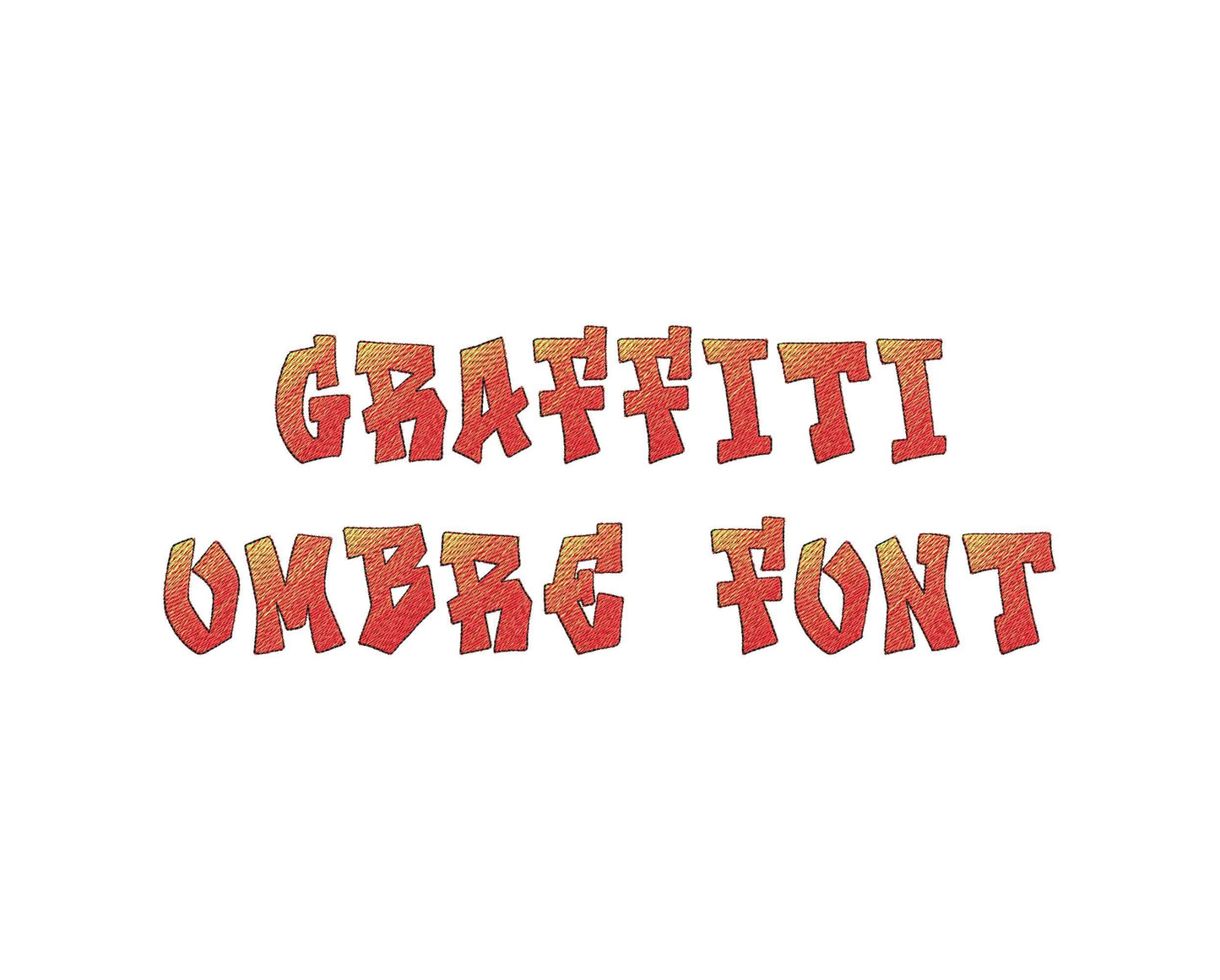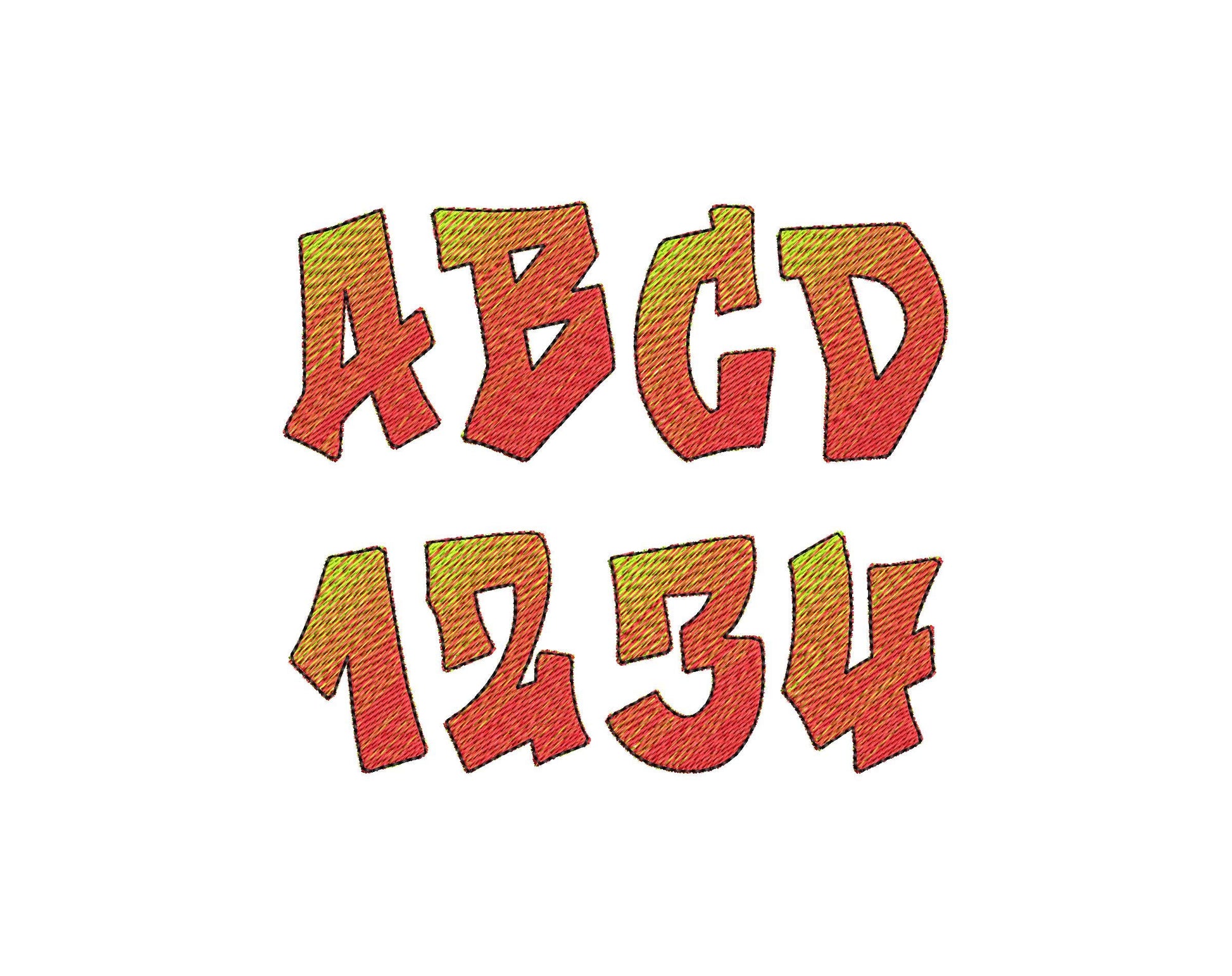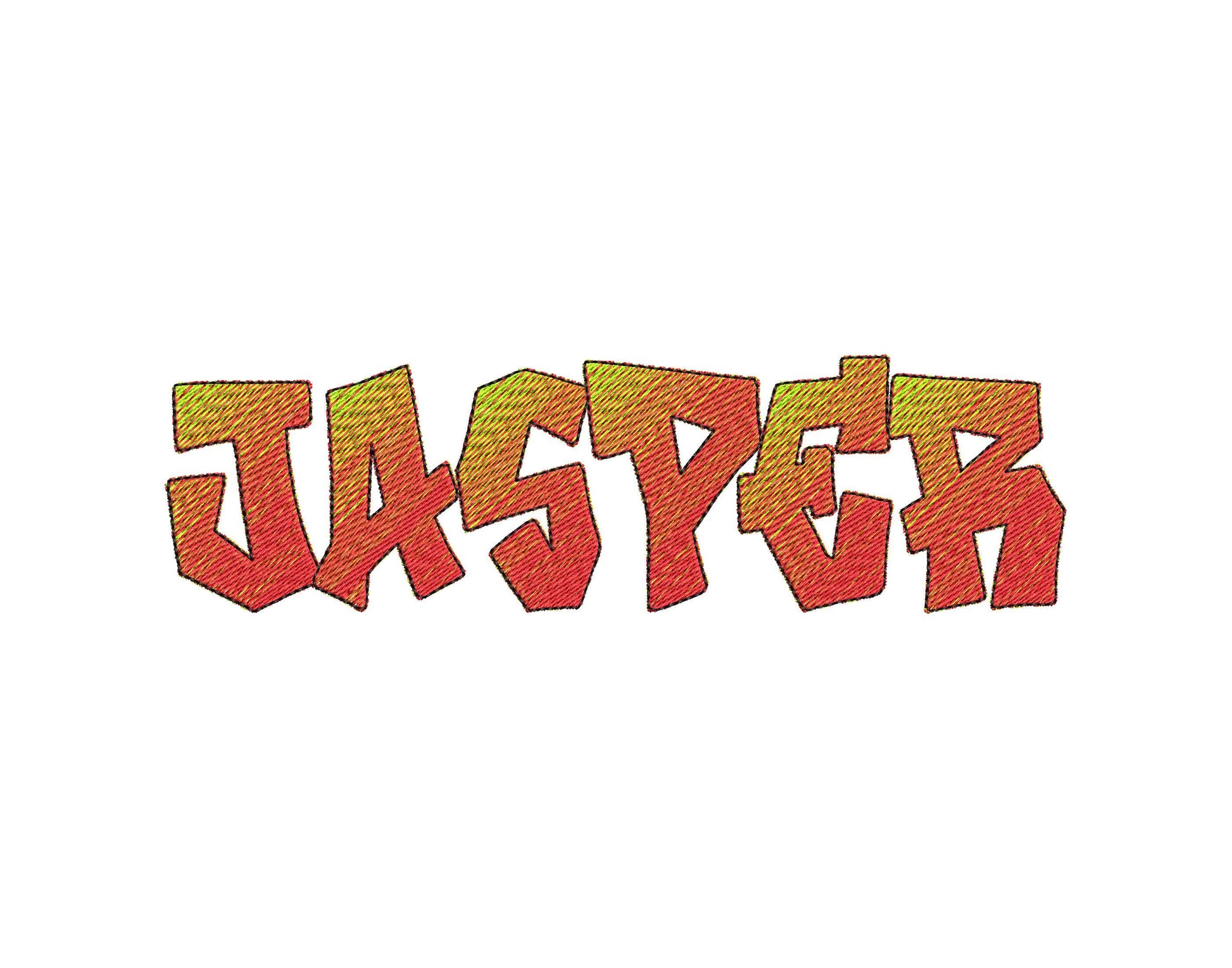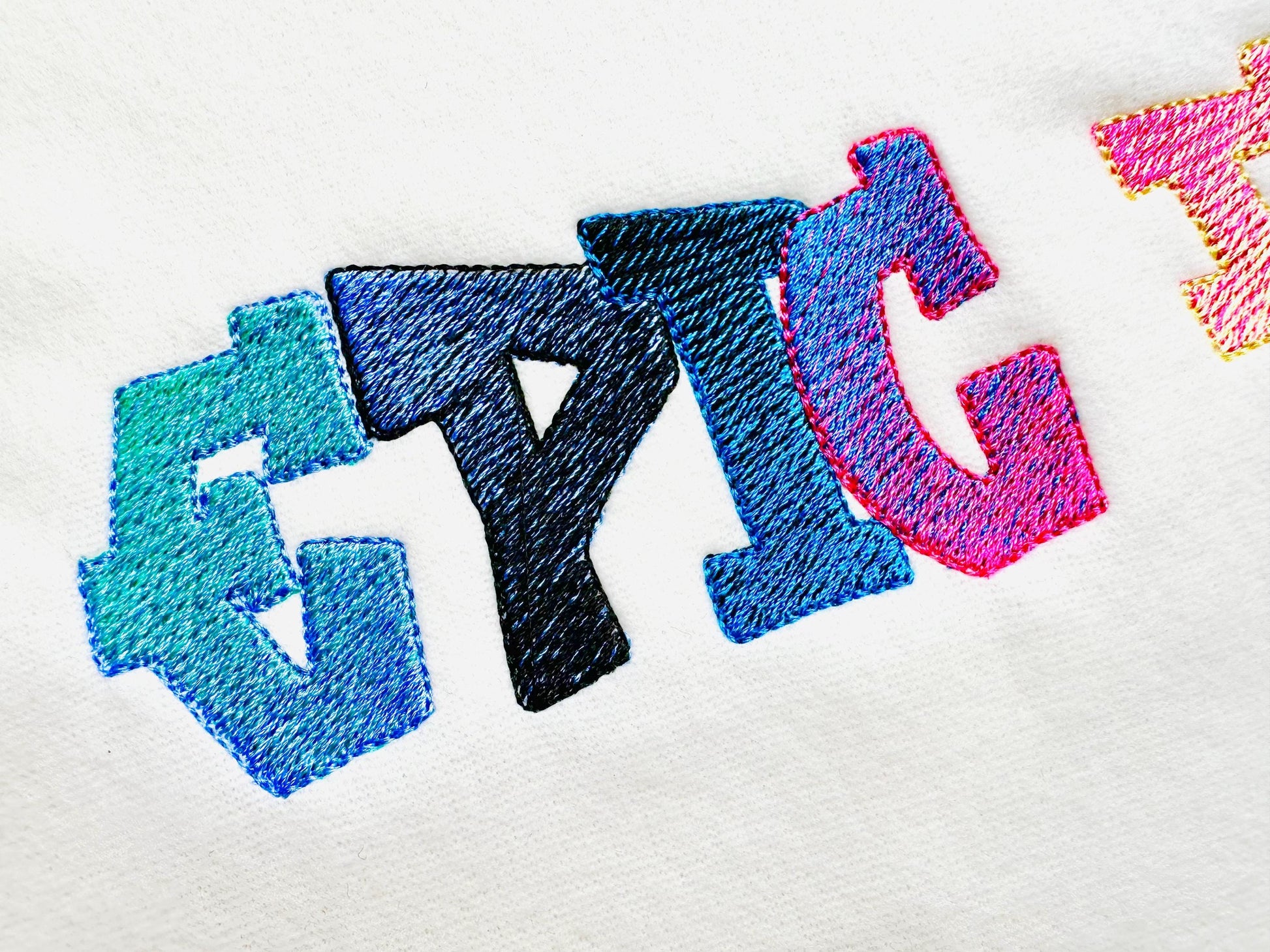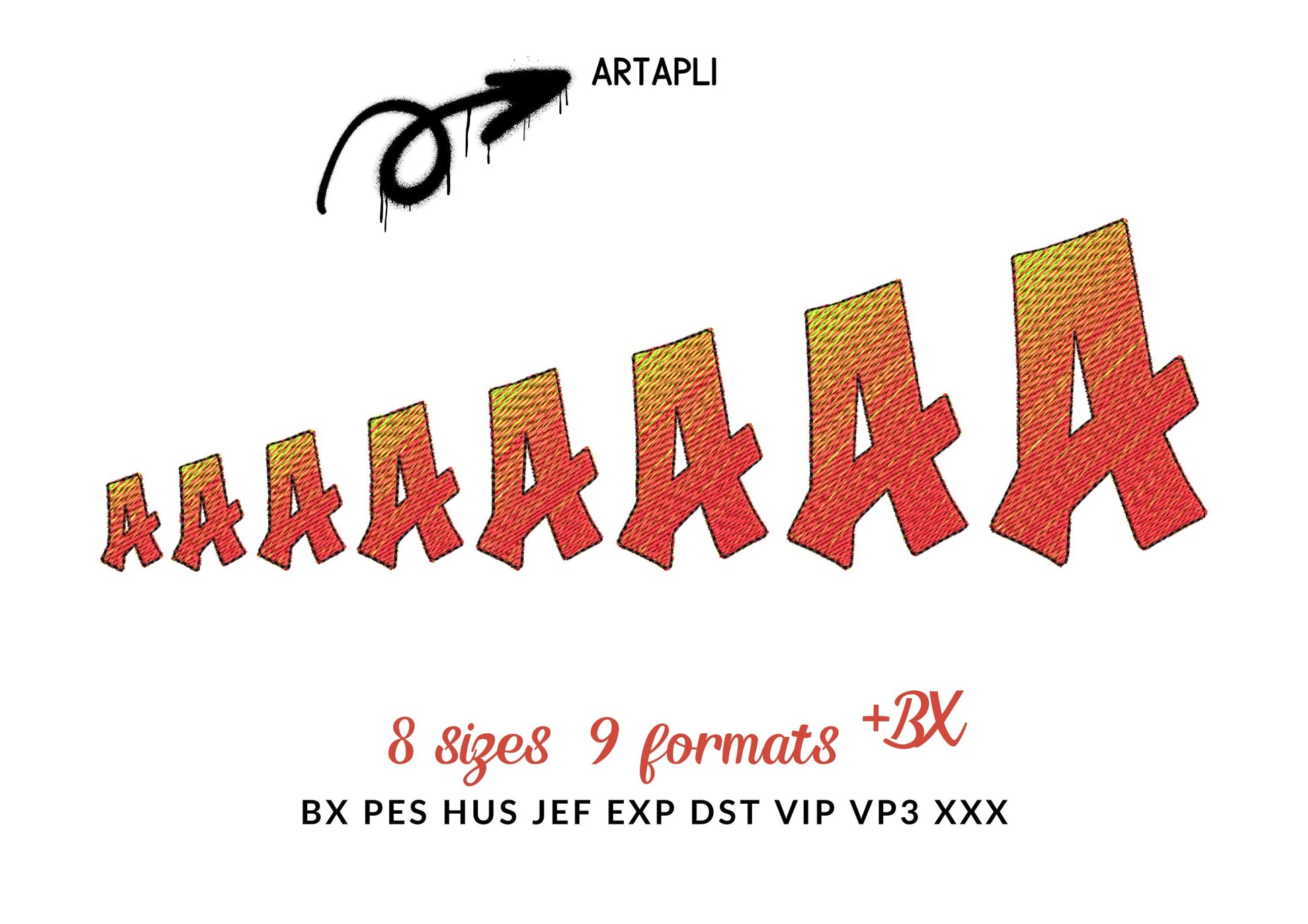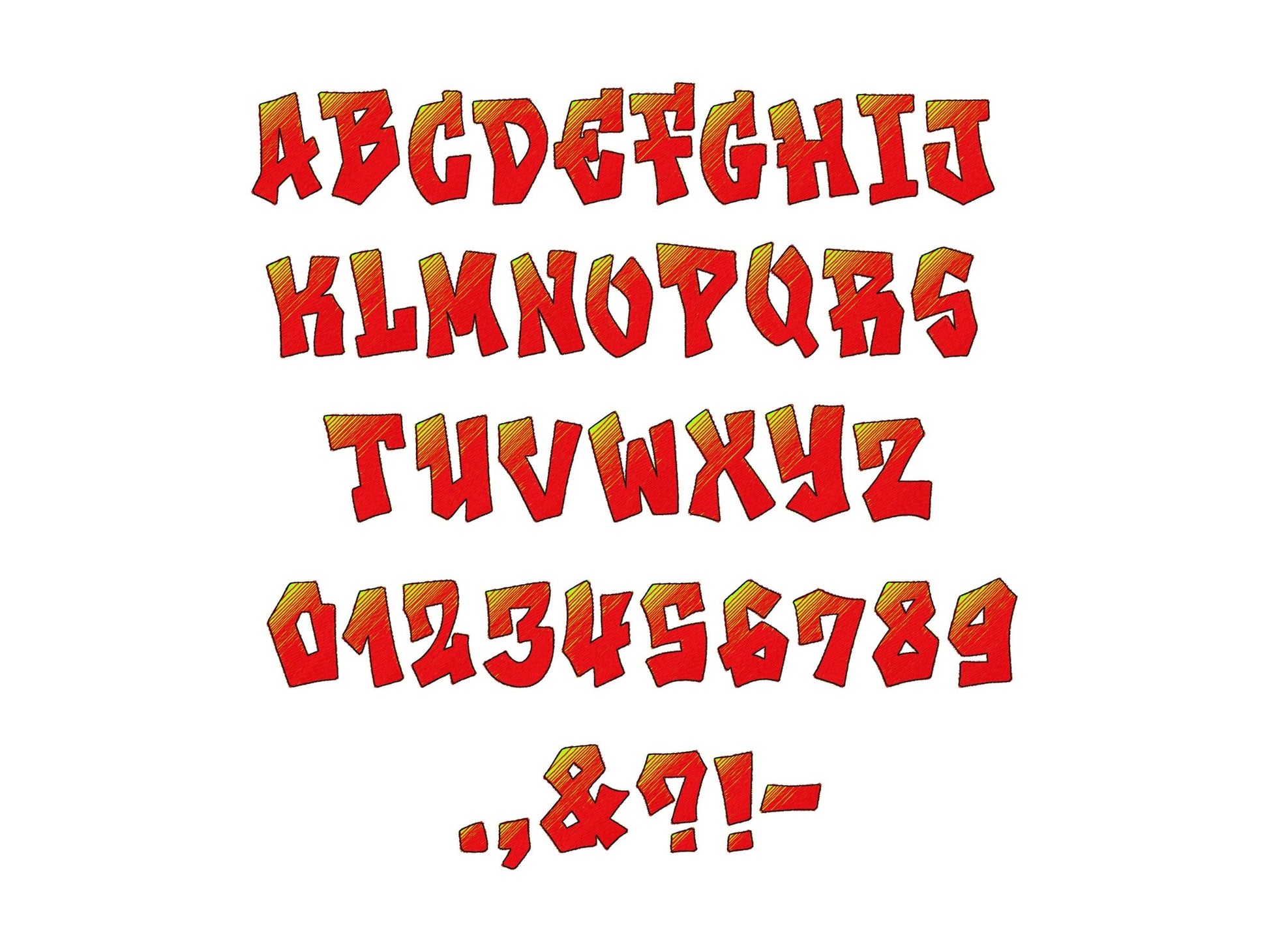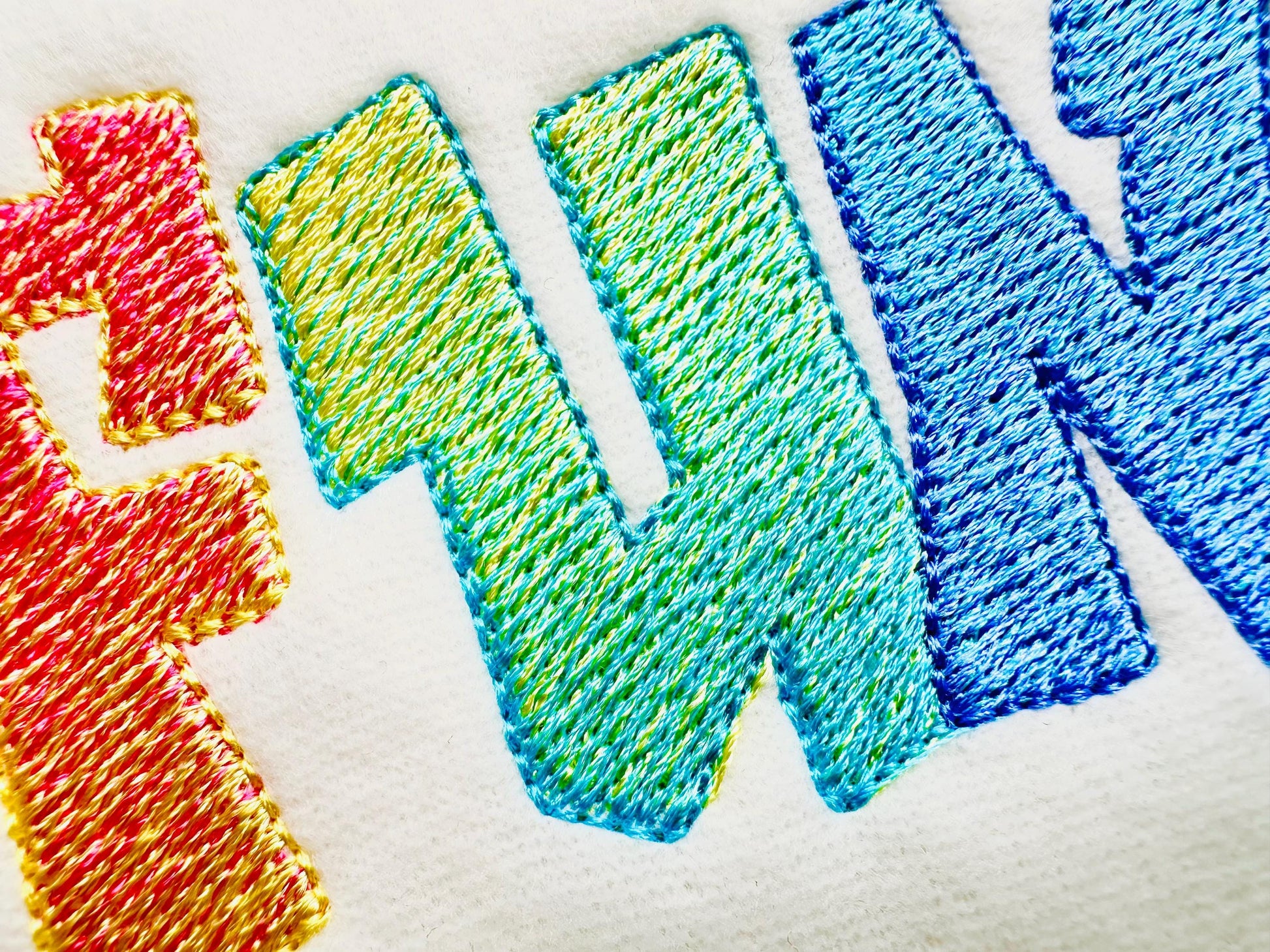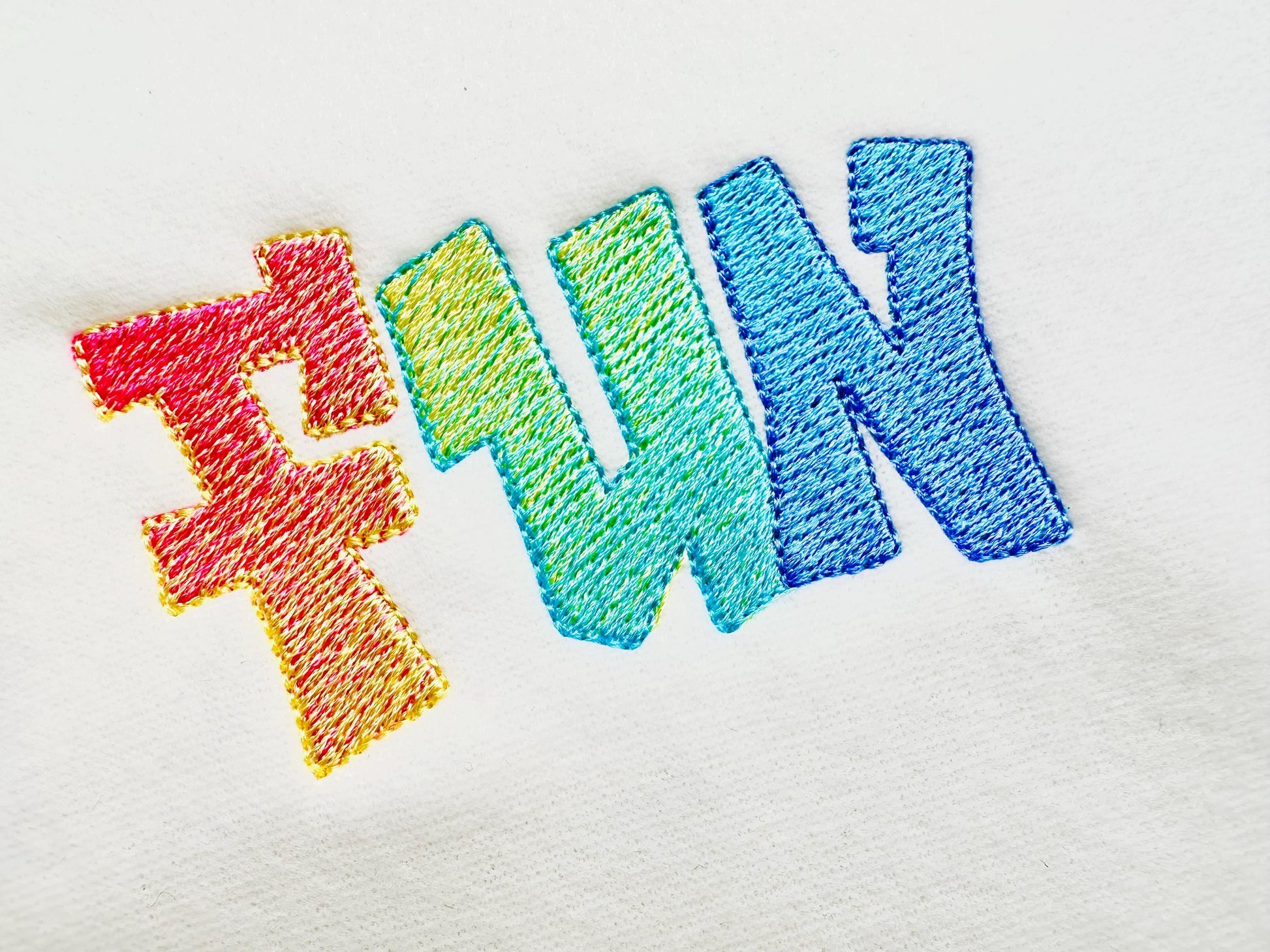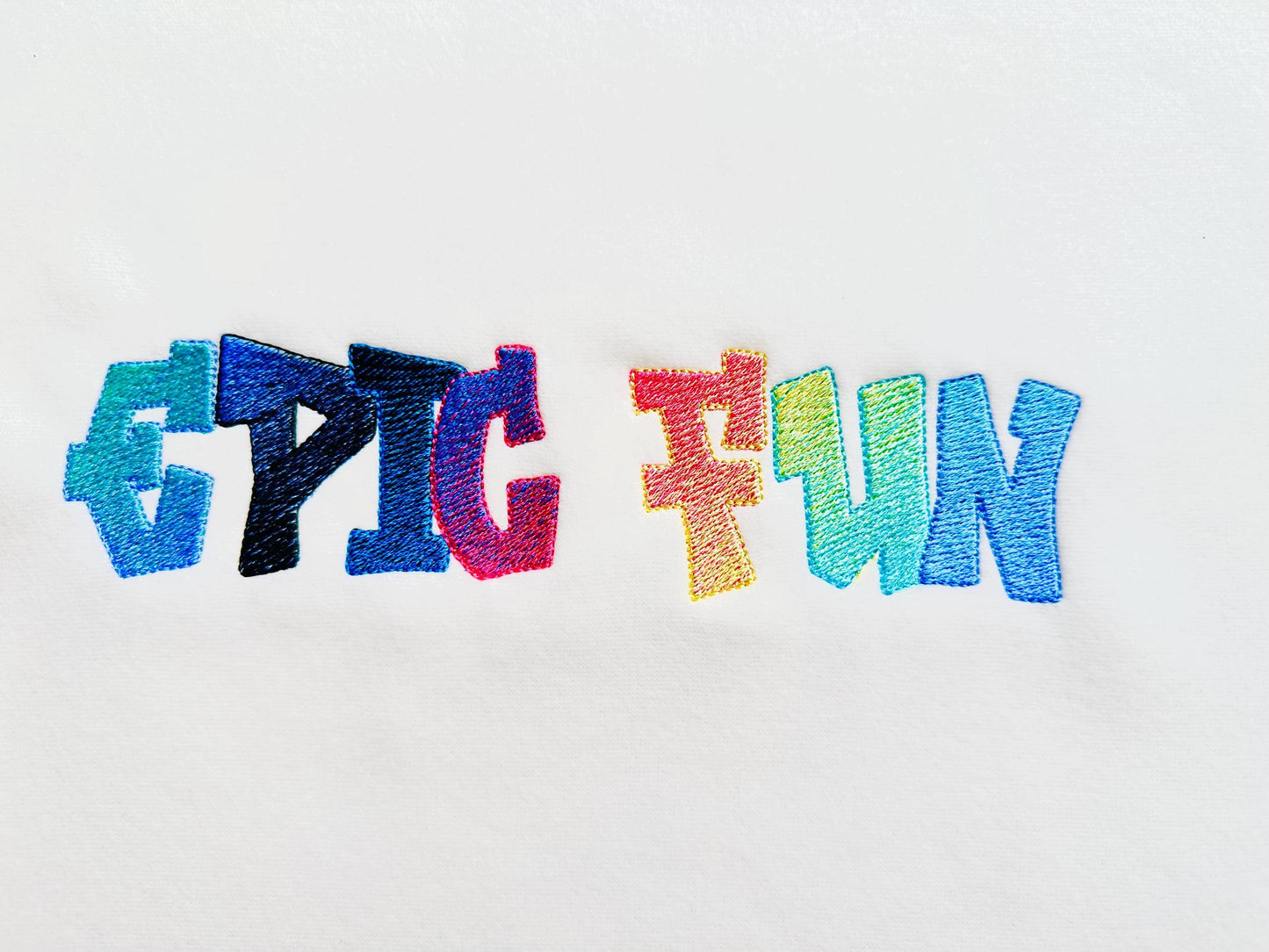
Graffiti Street Art Iridescent Font
Included: Uppercase A-Z, Numbers 0-9, Punctuation
A graffiti street art font stitched in two ordinary thread colors for an iridescent gradient, finished with an outline. Cool for boys' shirts, names and monograms.
Uppercase letters A to Z, numbers 0 to 9 and punctuation, in eight sizes: 1, 1.2, 1.4, 1.7, 2, 2.4, 3 and 3.5 inches. Fill stitch letters, one side in each color.
• Graffiti iridescent 2-color font
• Uppercase A-Z, numbers 0-9, punctuation
• 8 sizes, 1 to 3.5 in